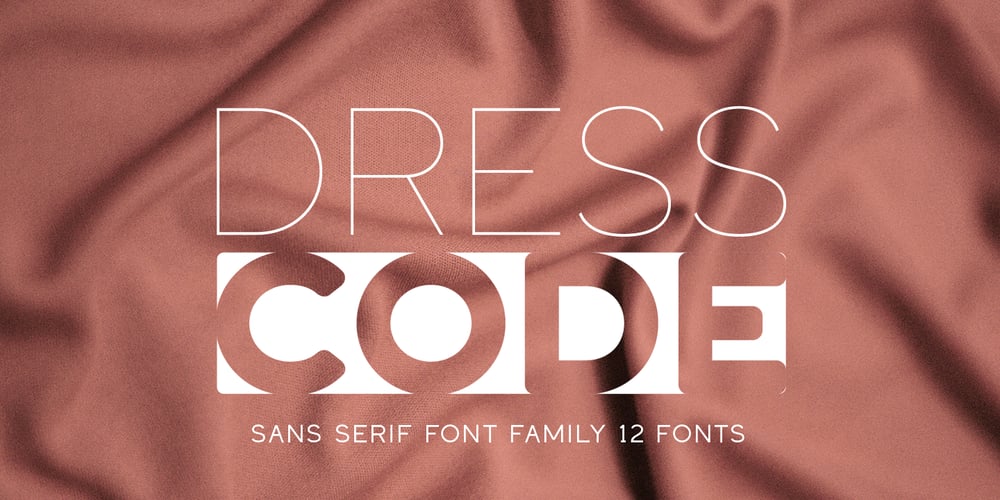
Dress Code
Dress Code font
Dress Code Font Family was designed by Pavel Larin and published by Larin Type Co. Dress Code contains 12 styles and family package options. Dress Code is a modern sans-serif font family that includes 12 fonts: 2 styles – regular and round, each with 6 weights – extra light, light, regular, medium, semi bold and bold. Also included in this font are many alternatives that give you more options for creating your project. with them, you can be unique and experiment with your design.This font is easy to read and versatile, suitable for editorial tasks, creating logos, book and magazine covers, cosmetics, advertising, branding, wedding invitations, posters, postcards, labels, business cards, packaging and much more.